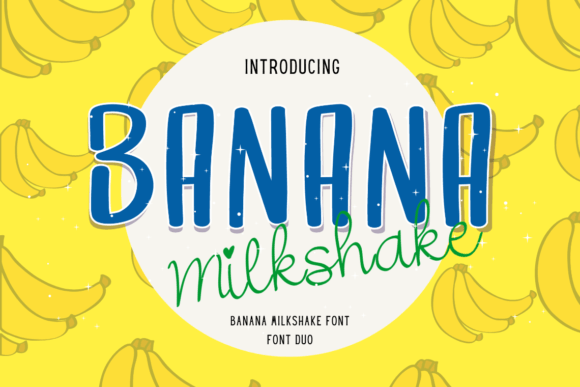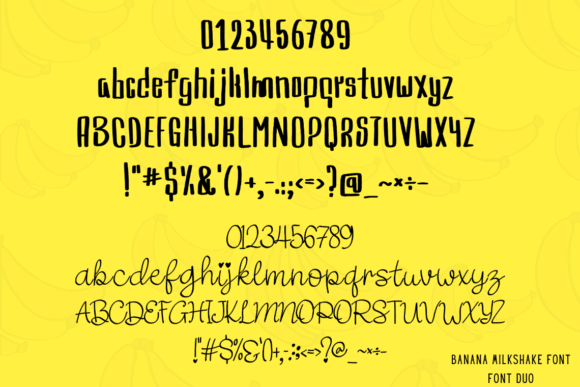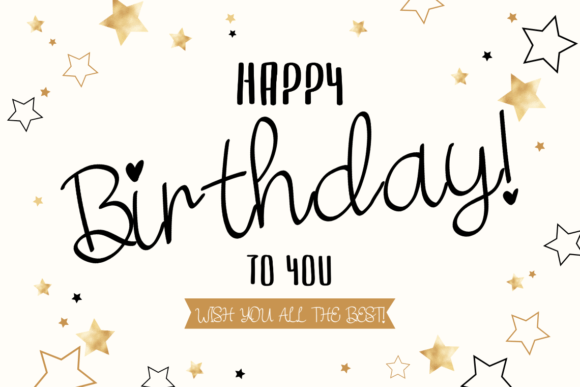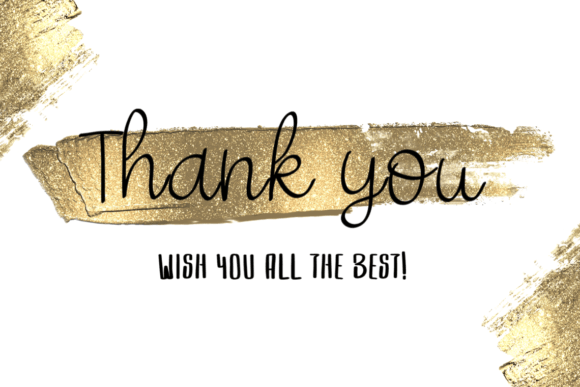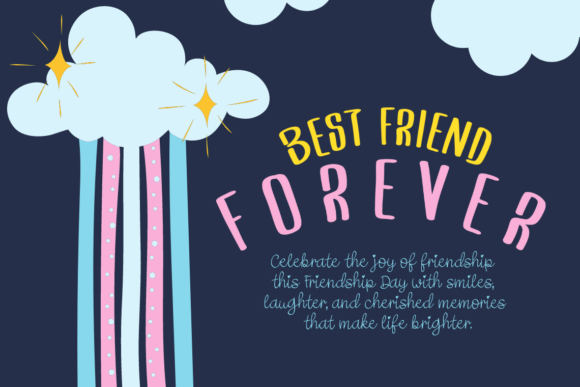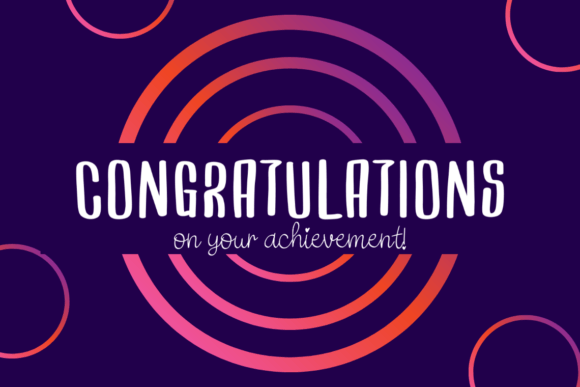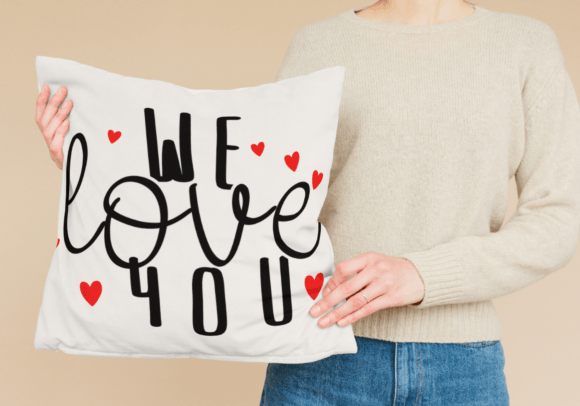
Quench Your Thirst for Creativity
There’s nothing quite like the feeling of being stuck on a design project, and then suddenly, the perfect font pops into your head. It’s like a refreshing glass of ice-cold lemonade on a hot summer day, and it’s exactly what happened when I stumbled upon the Banana Milkshake Font Duo.
This delightful Font Pack is designed to evoke the carefree spirit of a tropical getaway, making it the perfect addition to your summer and holiday designs. With its playful charm and vibrant personality, the Banana Milkshake Font is sure to bring a splash of fun and whimsy to your projects.
As a designer, you know how hard it can be to find the right font to match your creative vision. That’s why we’re excited to share the Banana Milkshake Font with you – it’s a game-changer that’s sure to inspire your next big project and make your designs stand out from the crowd.
Banana Milkshake Font Key Features
- Font Family: Banana Milkshake is a unique, hand-drawn font that captures the whimsy and playfulness of a banana milkshake.
- Unique Characteristics: Features a distinctive, cursive script with irregular letterforms, giving it a one-of-a-kind look that’s perfect for creative projects.
Designer Review: Banana Milkshake Font
At first glance, Banana Milkshake Font seems like a fun and quirky addition to any project. ✨ The font’s rounded edges and smooth lines evoke a sense of whimsy and playfulness, making it perfect for food-related branding or children’s content. ✨ The font’s weight and texture are well-balanced, creating a visually appealing contrast between light and dark areas.
- Unique and fun design that sets it apart from other fonts
- Well-balanced weight and texture for a visually appealing contrast
- Perfect for food-related branding or children’s content
However, there are some limitations to consider. ⚠️ The font may not be as versatile as other options, and its uniqueness may not be a good fit for more formal or professional projects. ⚠️ Additionally, the font’s rounded edges may not be suitable for projects that require a more modern or edgy aesthetic.
Overall, Banana Milkshake Font is a fun and quirky addition to any project. While it may not be suitable for all projects, it’s perfect for food-related branding or children’s content. With its well-balanced weight and texture, it’s sure to add a touch of whimsy and playfulness to any design.
The Banana Milkshake Font is perfect for:
1. Creating playful and eye-catching titles.
2. Adding a fun touch to children’s party invitations or designs.
3. Enhancing the visual appeal of food-related products or packaging.
Alternatives to Banana Milkshake Font
Great Vibes is a beautiful, handwritten font perfect for creating a friendly and approachable atmosphere. It’s ideal for use in branding, advertising, and social media platforms where a personal touch is desired. Compared to Banana Milkshake Font, Great Vibes has a more elegant and refined feel, making it suitable for a wider range of applications.
Alex Brush is a elegant, handwritten font that’s perfect for creating a sophisticated and high-end look. It’s ideal for use in luxury branding, advertising, and packaging where a touch of sophistication is desired. Compared to Banana Milkshake Font, Alex Brush has a more refined and polished feel, making it suitable for high-end applications.